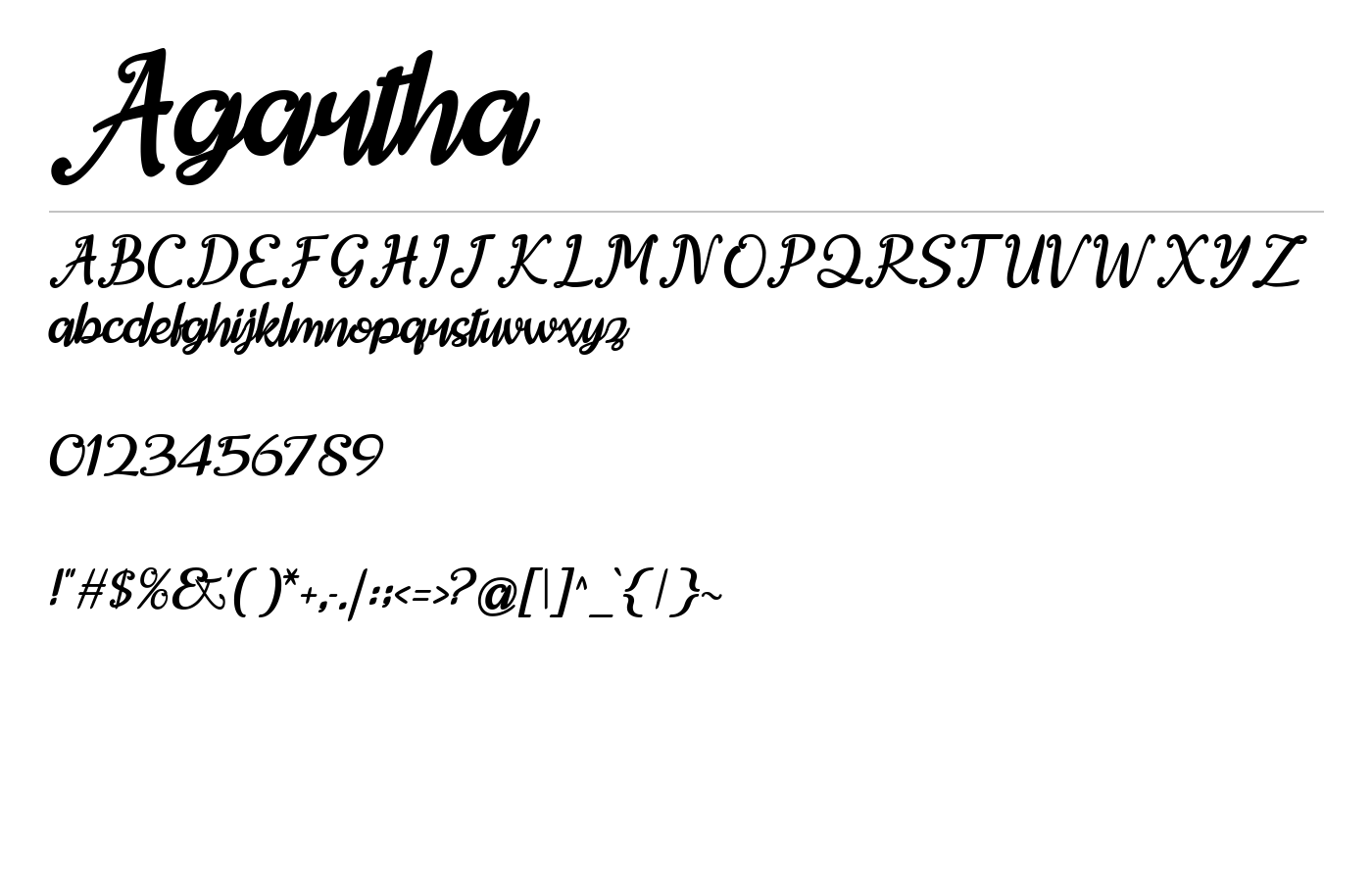
Agartha is an elegant script font with fluid, connected strokes that evoke a handwritten, calligraphic style. Its moderate weight and high contrast between thick and thin lines give it a refined yet approachable feel, making it ideal for invitations, branding, and decorative headlines where a touch of sophistication and personality is desired. This font works beautifully in designs aiming for a classic, graceful appearance without losing warmth and charm.
Agartha Font
About Agartha Font
| Font family | Agartha Font |
| Designer | Tri Kuncoro |